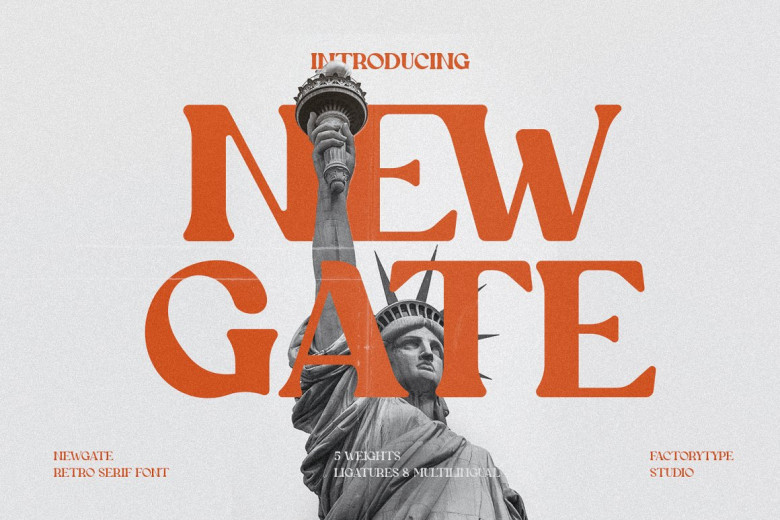
Newgate Font
NEWGATE is an updated font that is popular at the moment. It has the look of an antique etching, yet also (. Its fat curves make you feel like you’re at a 70s party, while its serifs make you realize that is in fact an old style. Put NEWGATE on your old movie posters for the appropriate blend. NEWGATE Garamond comes with small caps and old style figures, and true italics.
It has separate lowercase and uppercase characters, as well as numbers, punctuation and multilingua characters. The Ligature fonts are useful for anything your imagination can concoct!
Newgate Serif Font